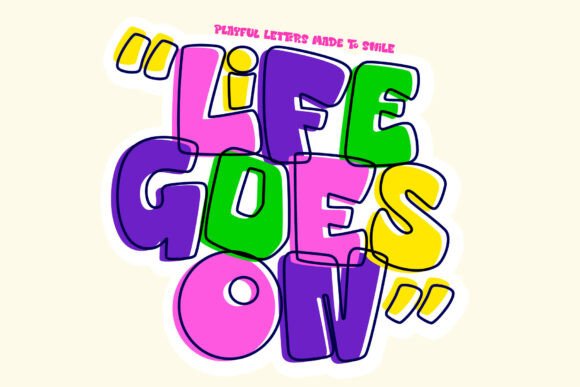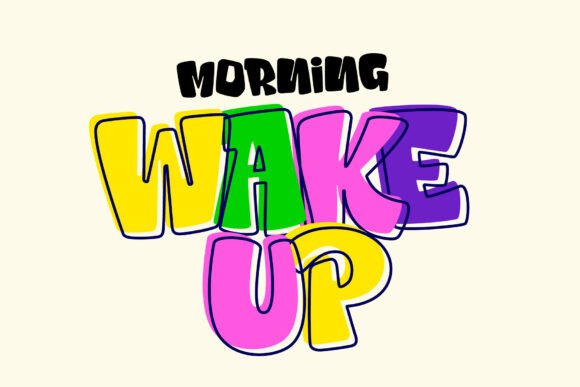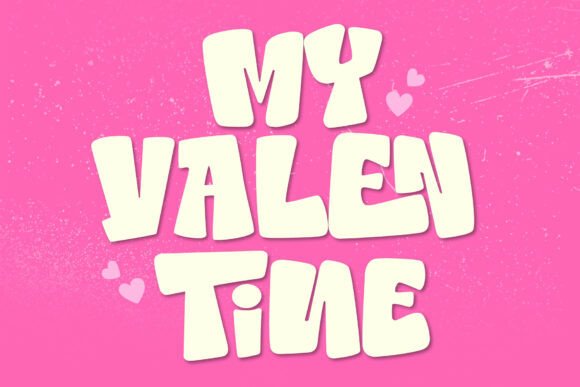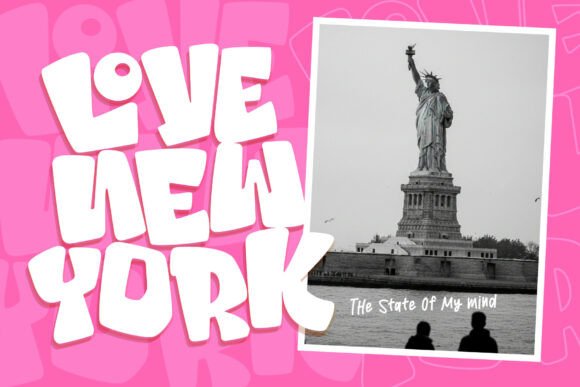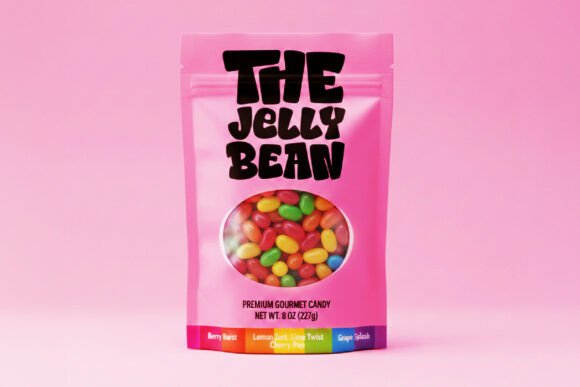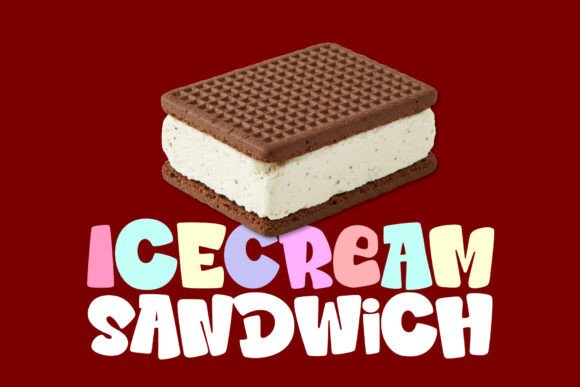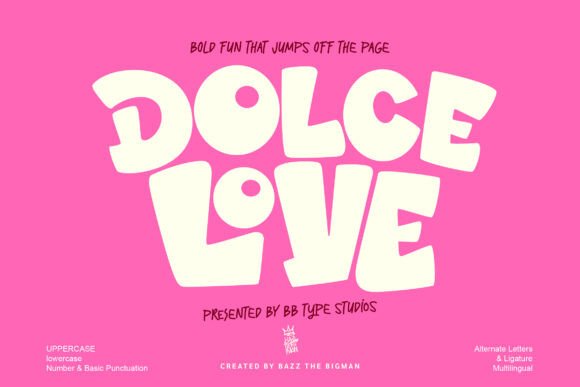
Dolce Love Font: The Ultimate Display Font for Adding Joy and Whimsy to Your Designs
Are you tired of using the same old fonts in your designs? Do you want to add a dash of personality and whimsy to your projects? Look no further than Dolce Love, an audaciously playful display font that’s sure to sprinkle joy and uniqueness to your creations. With its hefty figures, rounded bends, and attractive intricacies, Dolce Love is the perfect font for designers and crafters who want to make a statement.
What Makes Dolce Love So Special?
Dolce Love is more than just a font – it’s an experience. Its bold and playful design is characterized by its:
- Hefty figures: Dolce Love’s letters are big and bold, making them perfect for headlines and titles that demand attention.
- Rounded bends: The font’s smooth and rounded curves give it a friendly and approachable feel that’s hard to resist.
- Attractive intricacies: Dolce Love’s details are what set it apart from other fonts. From the subtle texture to the cleverly designed letterforms, every element is carefully crafted to add visual interest and depth.
Dolce Love is an incredibly versatile font that can be used in a wide range of projects, including:
- Kids’ projects: Add a touch of whimsy and fun to children’s books, educational materials, and activity sheets.
- Valentine’s Day crafts: Make your Valentine’s Day cards, gift tags, and decorations stand out with Dolce Love’s playful charm.
- Sweet treat wrappings: Give your baked goods and candies a personalized touch with custom labels and wrappers featuring Dolce Love.
- Stickers and posters: Create eye-catching stickers and posters that grab attention and spread joy.
- Brand imaging: Use Dolce Love to add a dash of personality to your brand’s visual identity and marketing materials.
- Social media posts: Make your social media posts stand out with Dolce Love’s bold and playful font.
Why Choose Dolce Love?
If you’re looking for a font that will add a dash of daring cuteness to your designs, Dolce Love is the perfect choice. Here are just a few reasons why:
- Unique and playful design: Dolce Love is unlike any other font on the market. Its bold and playful design is sure to turn heads and spark joy.
- Easily readable: Despite its bold design, Dolce Love is surprisingly easy to read, making it perfect for headlines and titles.
Tips for Using Dolce Love Effectively
To get the most out of Dolce Love, here are a few tips to keep in mind:
- Use it sparingly: Dolce Love is a bold font, so use it sparingly to avoid overwhelming your design.
- Pair it with complementary fonts: Pair Dolce Love with simpler fonts to create visual interest and hierarchy.
- Experiment with colors and textures: Dolce Love looks great in a variety of colors and textures, so don’t be afraid to experiment and find the perfect combination for your design.